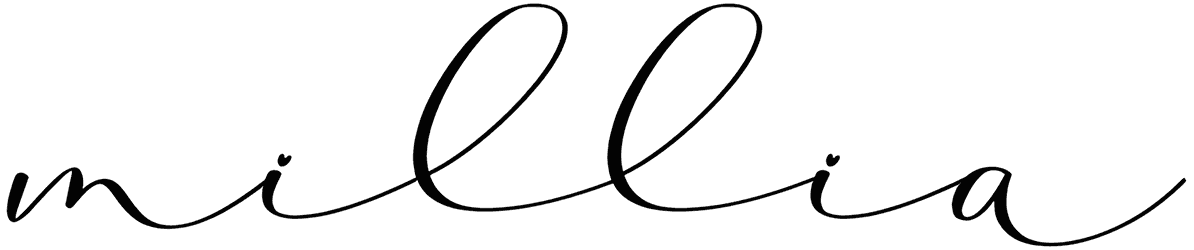
Millia Font
If you want to put your last arrow in the bow to achieve success and shoot with maximum power, Millia can be your trusted archer. The letters of the alphabet in this script font are poetically connected and can evoke emotions in your writing, but they are a bit hard to read.
This calligraphy font is very capable of conveying human emotions. For this reason, it is perfect for invitation cards, wedding greetings, book covers, and even annotating posters.